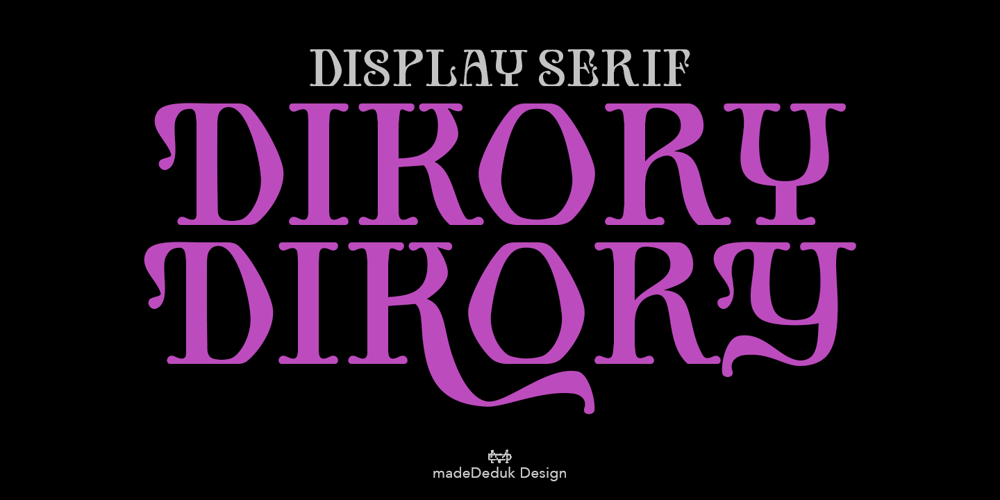
Dikory Font Family was designed by madededuk and published by madeDeduk. Dikory contains 1 styles and family package options. Dikory is a classic display serif, come with single weight, legible and expressive shapes. A lot of stylish alternates characters and ligature will makes this font suitable for your any project design.